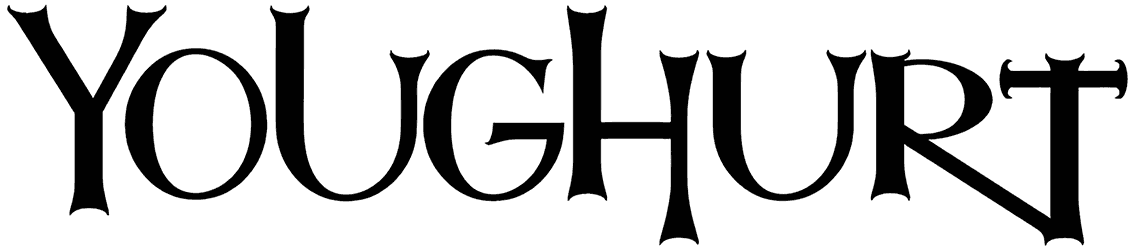
Youghurt Font
For those of you who are interested in unique and strong designs, Yoghurt would represent an ideal choice. This cartoon font has playful letters and can illustrate your designs, such as posters, covers, backgrounds, and other kinds of stuff. As an epic font, Youghurt can make your texts creepy and whimsical, but it doesn’t have lowercase, numbers, or punctuation.